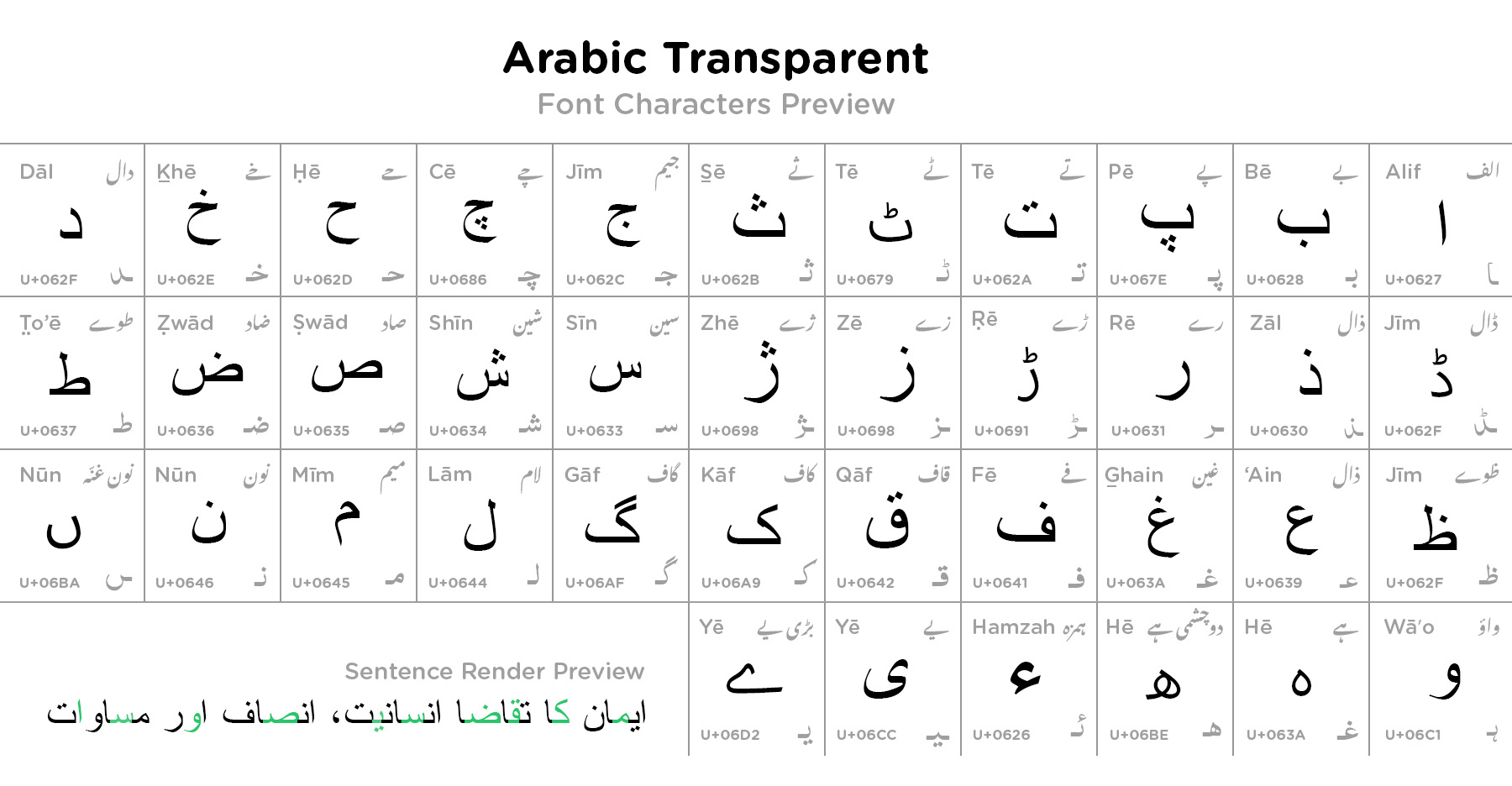
Arabic Transparent, is a regular Arabic font released in 1996 by Agfa, a type foundry from Belgium. Inspired by the Naskh script with modern influences, it features a wide and symmetrical design with a thick appearance. With 480 characters and 258 glyphs, Arabic Transparent ensures compatibility with various languages, including Urdu, Arabic, Latin, Persian, and more. Its Unicode support covers Basic Latin, Latin-1 Supplement, and Private Use Area blocks. The font’s clear and neat outlook ensures high legibility on screens, even at small sizes, making it well-suited for longer text blocks where readability is essential. It exhibits a thick overall thickness, denser towards curves and thinner near edges, providing a balanced visual impact. It is available in two font weights, offering flexibility for various design needs. These may include: